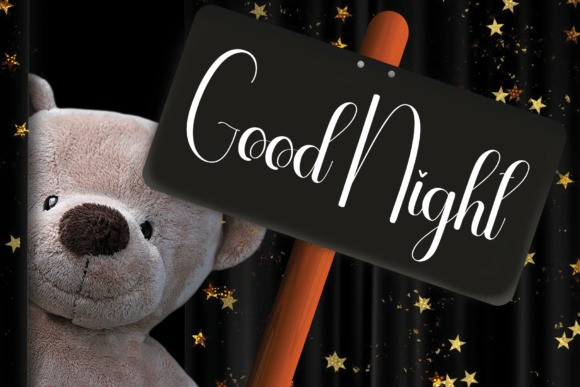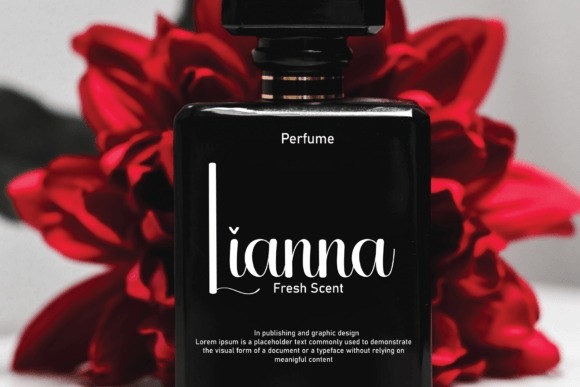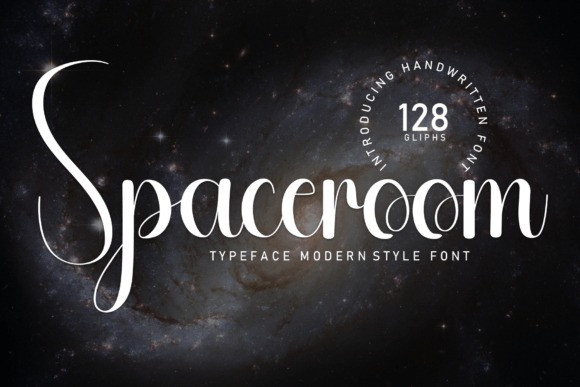
Spaceroom Script Font
Spaceroom Script Font is a sweet and friendly handwritten font. Fresh and cute, this font is ideal for writing wedding invitations, cards, or any other design that might need a fun touch!